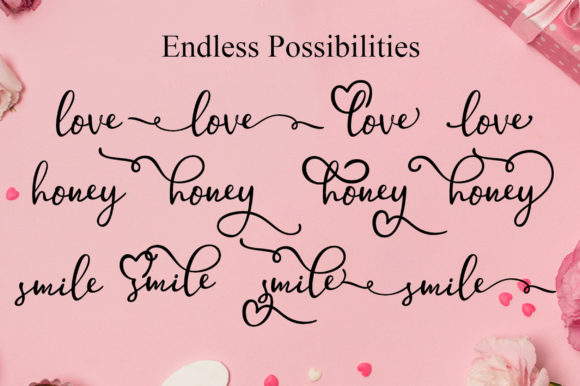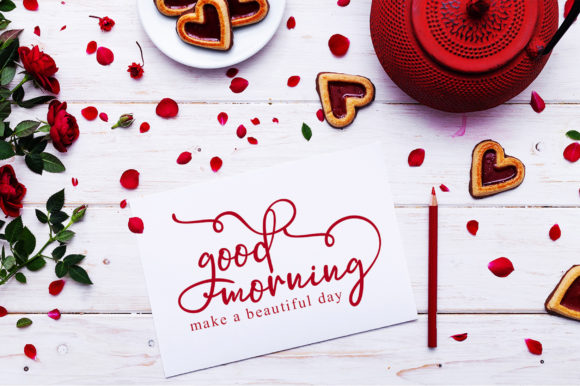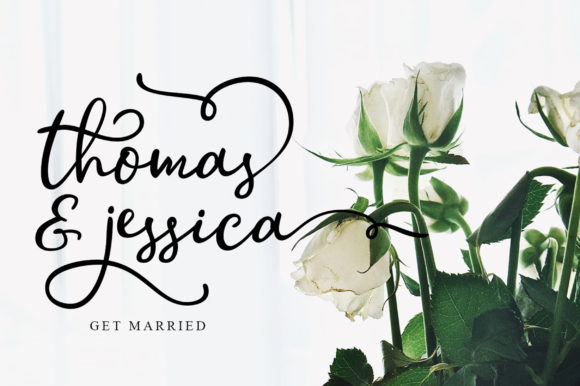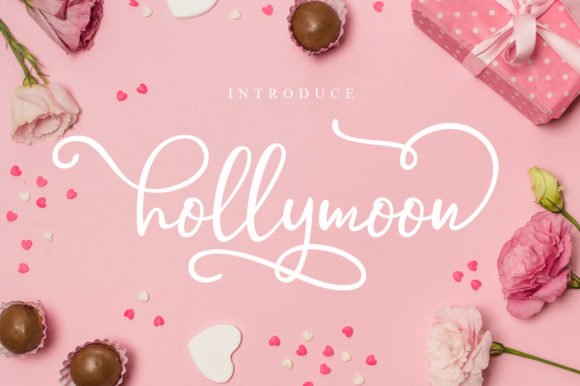
Introduction to Hollymoon Font
Hollymoon is a delicate and elegant handwritten font.
Its distinct and well rounded letters make this font a masterpiece Fall in love with its incredibly versatile style and use it to create spectacular designs.
Hollymoon Font offers exceptional quality and versatility, making it a valuable addition to your design toolkit. Whether you’re creating for personal projects or commercial use, Hollymoon Font delivers professional results.